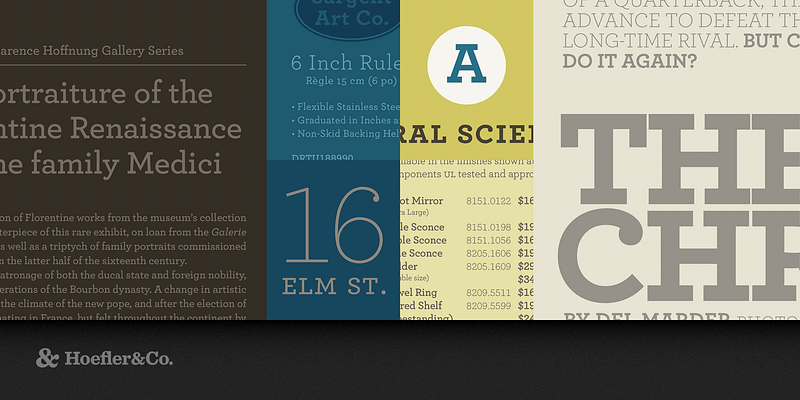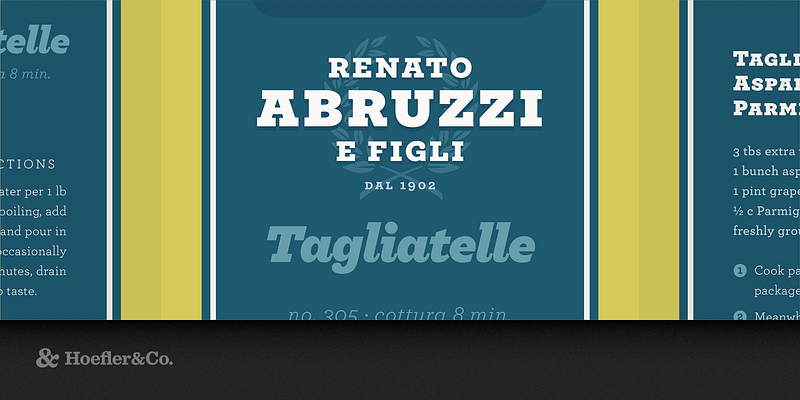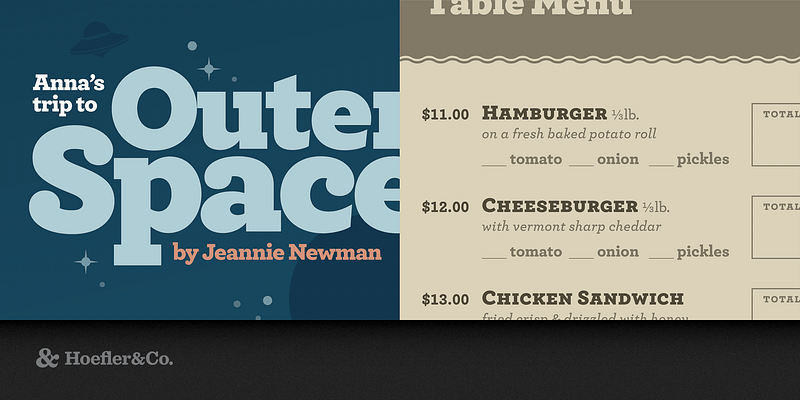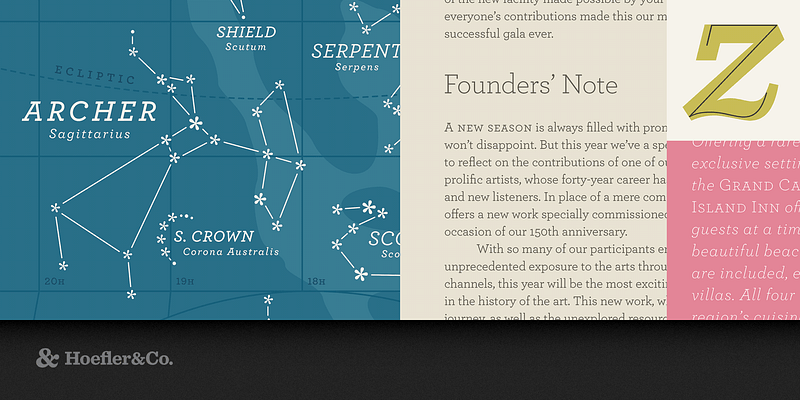
Sweet but not saccharine, earnest but not grave, Archer is designed to hit just the right notes of forthrightness, credibility, and charm.
Slab serifs have been evolving for two hundred years, yet the category continues to be dominated by two basic styles: Antiques and Geometrics. Antiques arise out of the same nineteenth-century tradition that produced the Modern and Scotch styles: at heart, they’re text faces, and they feature all of the qualities needed to thrive at small sizes. (Antiques customarily have the traditional ‘two-storey’ forms of a and g, and a capital R that ends in a flourish.) Our Ziggurat typeface is an example of the Antique style in full flower, capturing the best of what the style has to offer: it’s warm, comforting, and persuasive. But this coziness comes at the expense of modernity, and in the wrong context even the best Antique can feel old-fashioned, musty, and irrelevant.
The Geometric is a twentieth-century riposte to the Antique. Informed by the same kind of rationalist thinking that inspired the great sans serifs of the Bauhaus, Geometrics abandon traditional forms in favor of mathematical strategies. A Geometric’s O is circular rather than elliptical, and its forms shed their residual contrast between thicks and thins. Geometrics usually apply this same rationalism to the woollier parts of the alphabet, replacing the alphabet’s beaks and tails and ball terminals with a program of matching serifs. While these faces can sometimes be bracingly modern, they’re often monotonous, and many Geometrics suffer from an astringent sting that makes them difficult to use and unwelcome to read.
When Martha Stewart Living asked us to develop a new typeface for the magazine, it seemed that a slab serif could answer much of the brief. A slab could be personable, straightforward, and credible, though it would take special effort to also make it pretty, hard-working, and frank. Archer would have to answer some formidable typographic demands, since Living is an almanac of lists, recipes, charts, diagrams, tables, calendars, and glossaries. To make the typeface frank — direct, but not brusque — we introduced subtle cues from the world of typewriter faces, which combine the ordinariness of Antiques with the modern practicality of Geometrics. We restored the vanished ‘ball terminals’ to the lowercase, and uncharacteristically applied these gestures to the capitals as well, in order to yield a font that’s friendly without being silly, and attractive without being flashy. The result is a typeface that’s well-mannered, easy to work with, and inviting to read.
The Archer typeface was designed by Jonathan Hoefler and Tobias Frere-Jones in 2001, with contributions from Jesse Ragan and additional material by Jordan Bell and Andy Clymer. While rooted in the ‘geometric slab serif’ style that emerged in the early nineteenth century (and reached full flower a century later), Archer’s many liberties with the style include its uncharacteristic application of ‘ball terminals’ to capital letters such as ‘C’ and ‘S,’ a detail traditionally found only in the lowercase alphabet. Archer was created for Martha Stewart Living, in whose pages the typeface first appeared in 2001.